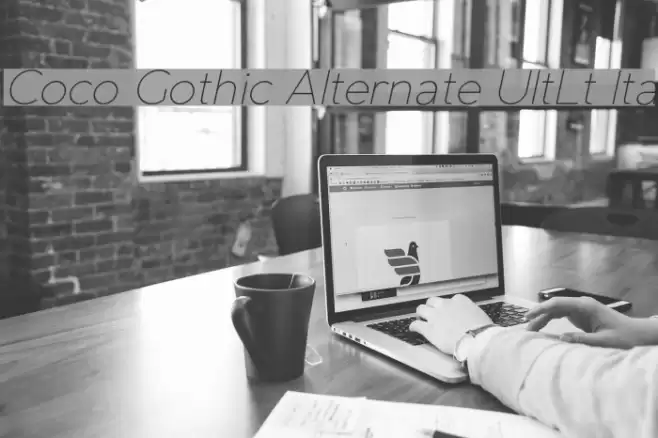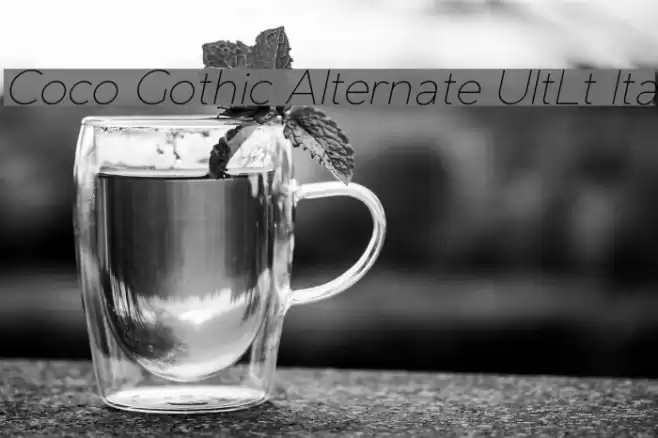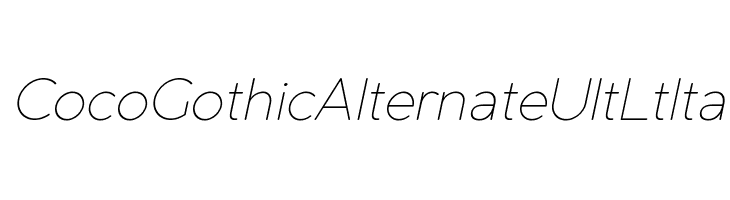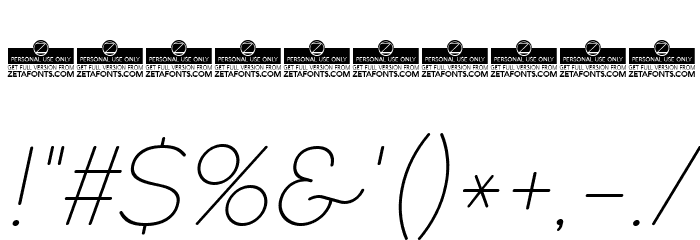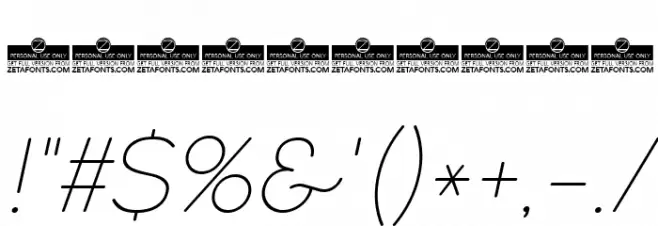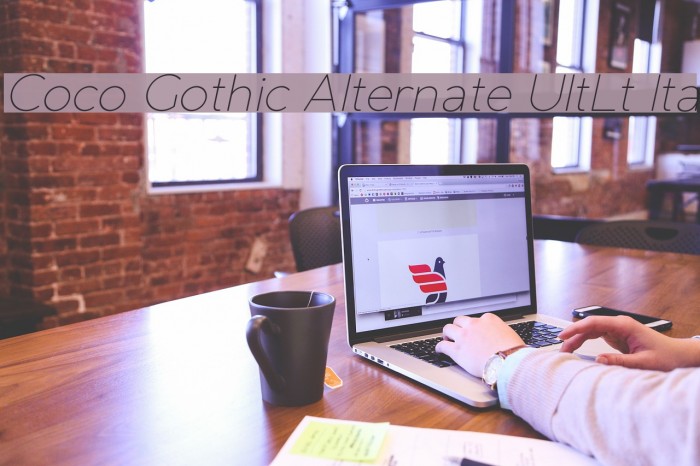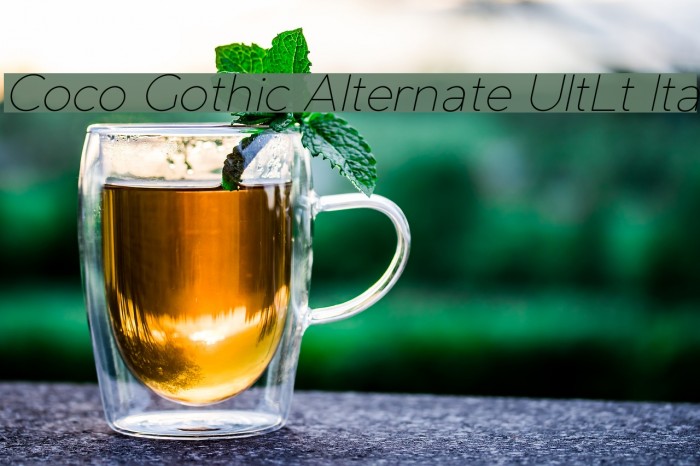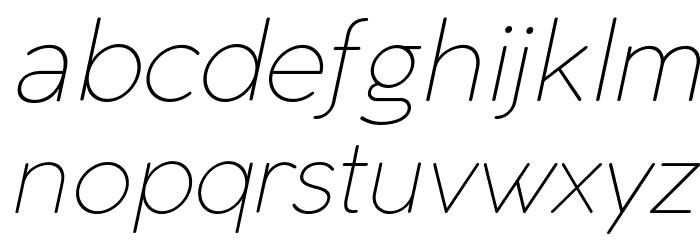
Coco Gothic Alternate UltLt Ita Font
Coco Gothic Alternate UltLt Ita Description
This font features a sleek, modern design with a clean and minimalist aesthetic. The characters are elegantly crafted with a consistent stroke width, giving it a uniform appearance. The uppercase and lowercase letters are well-proportioned, with a slight slant that adds a dynamic feel. The numerals and special characters maintain the same stylistic approach, ensuring a cohesive look across all elements. The overall design is refined and sophisticated, making it suitable for contemporary projects that require a touch of elegance.
A sleek, modern font with a clean, minimalist design and slight slant from Uncategorized fonts.